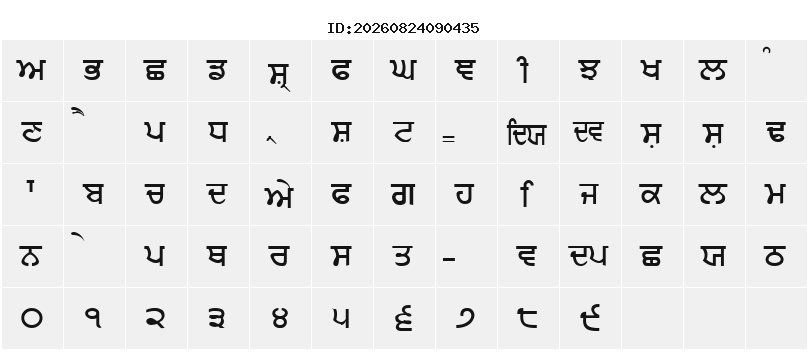
Sandhu01 Preview
• Font Name: Sandhu01
• Full Font Name: Sandhu01
About Sandhu01.ttf
Sandhu01.ttf is a modern, elegant sans-serif font designed for ultimate readability and visual harmony. Perfect for branding, headlines, web design, and print materials.